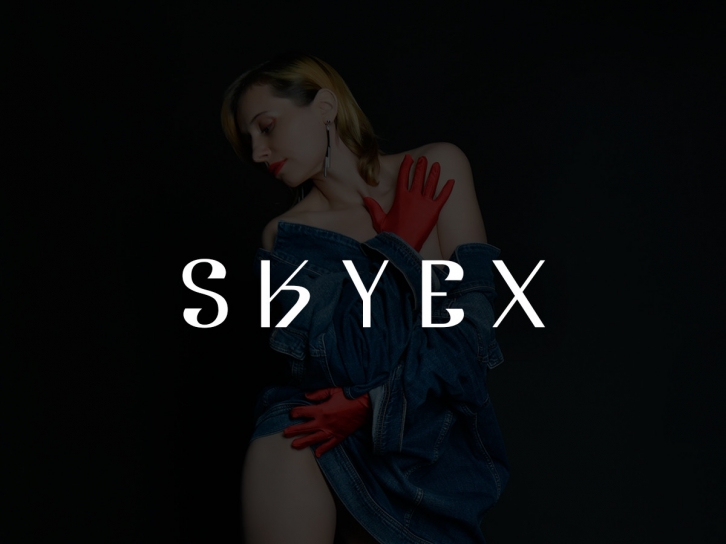
Skyex is a cool, unique and techno looking display font. This font is ideal for writing web designs, business cards, or pretty much anything else that requires a unique touch.